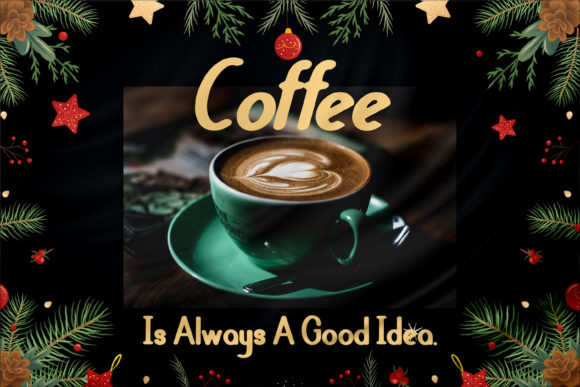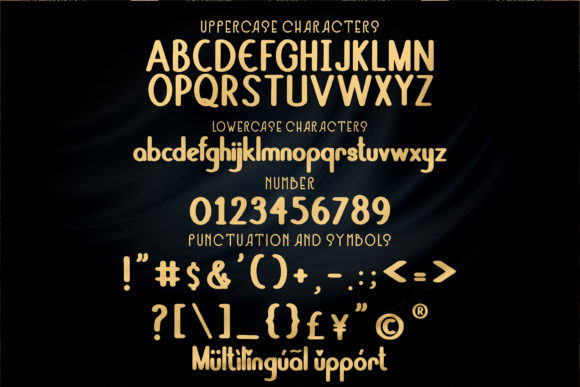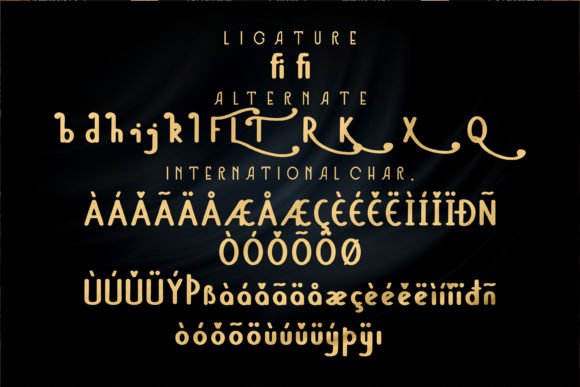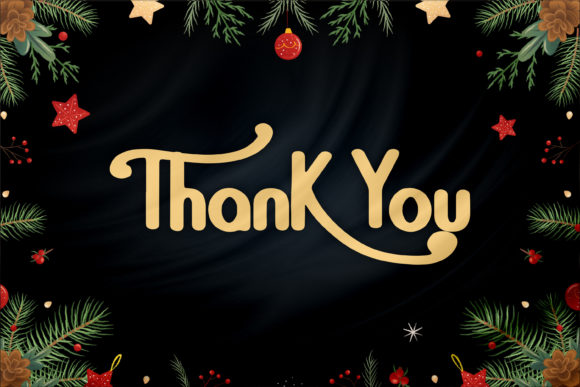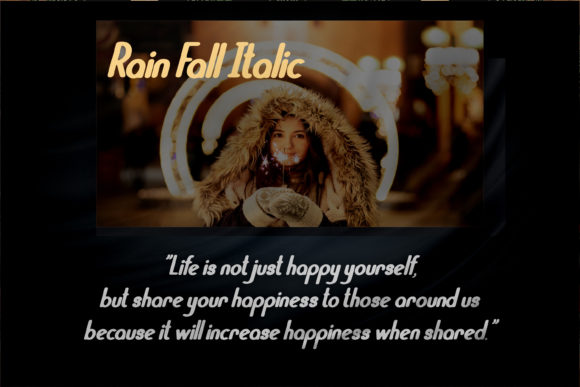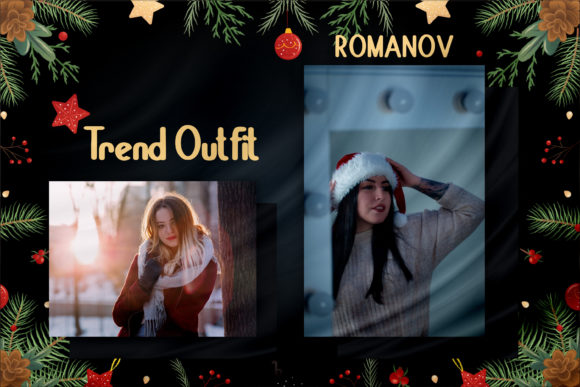
Introduction to Rain Fall Font
Rain Fall is a chic and vintage styled display font.
It works well on logos, branding projects, homeware designs, product packaging, mugs, quotes, posters, and pretty much any other luxury projects that need a premium signature taste .
Key Features of Rain Fall Font